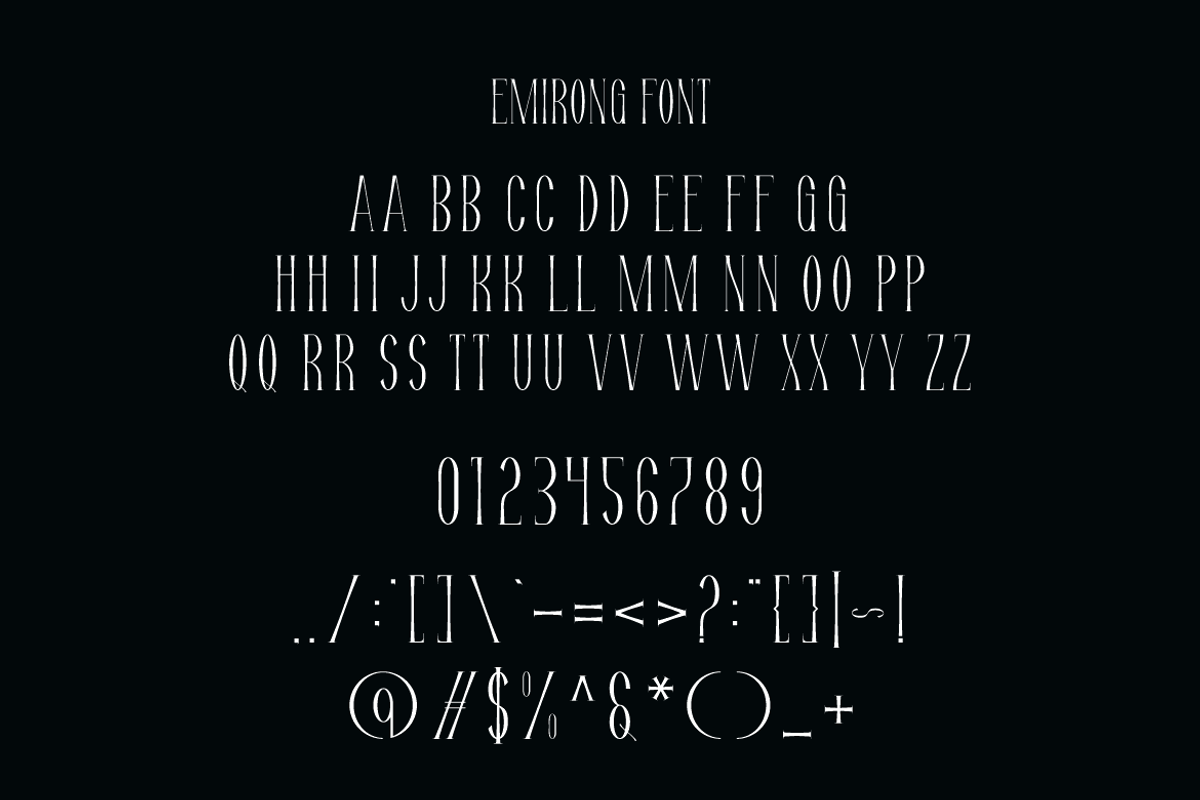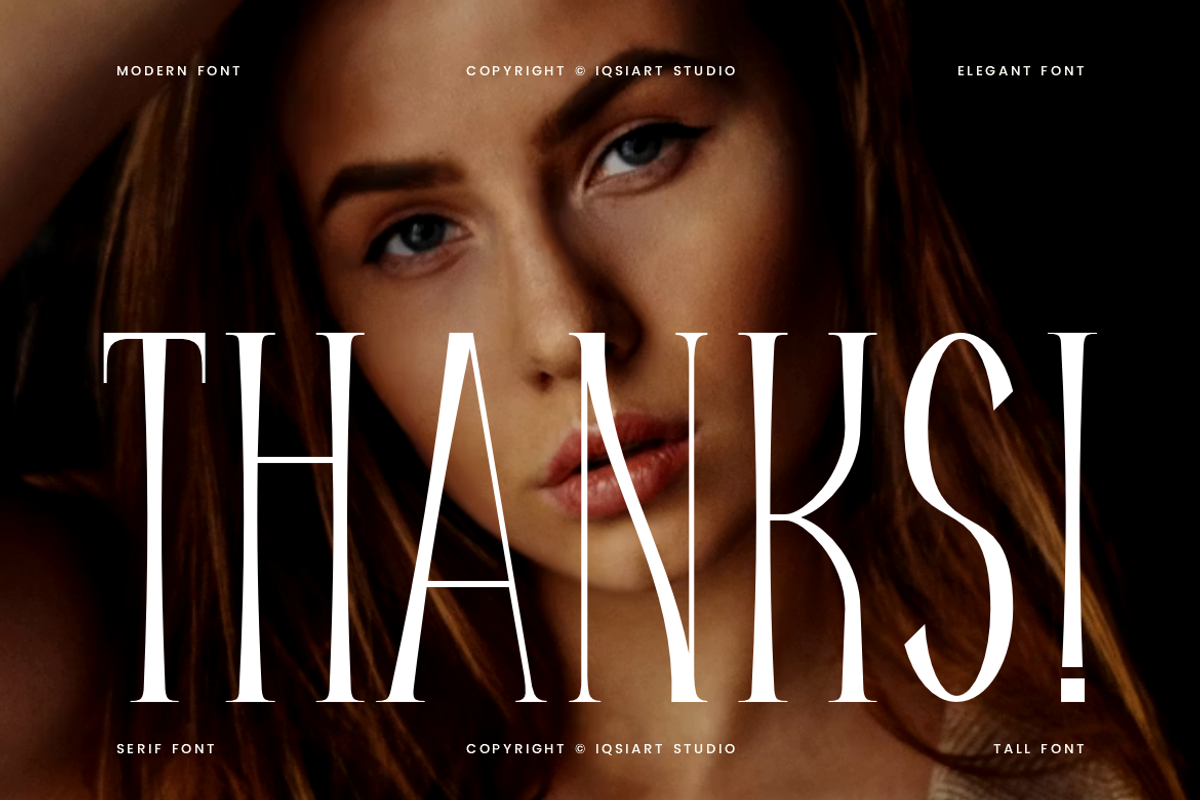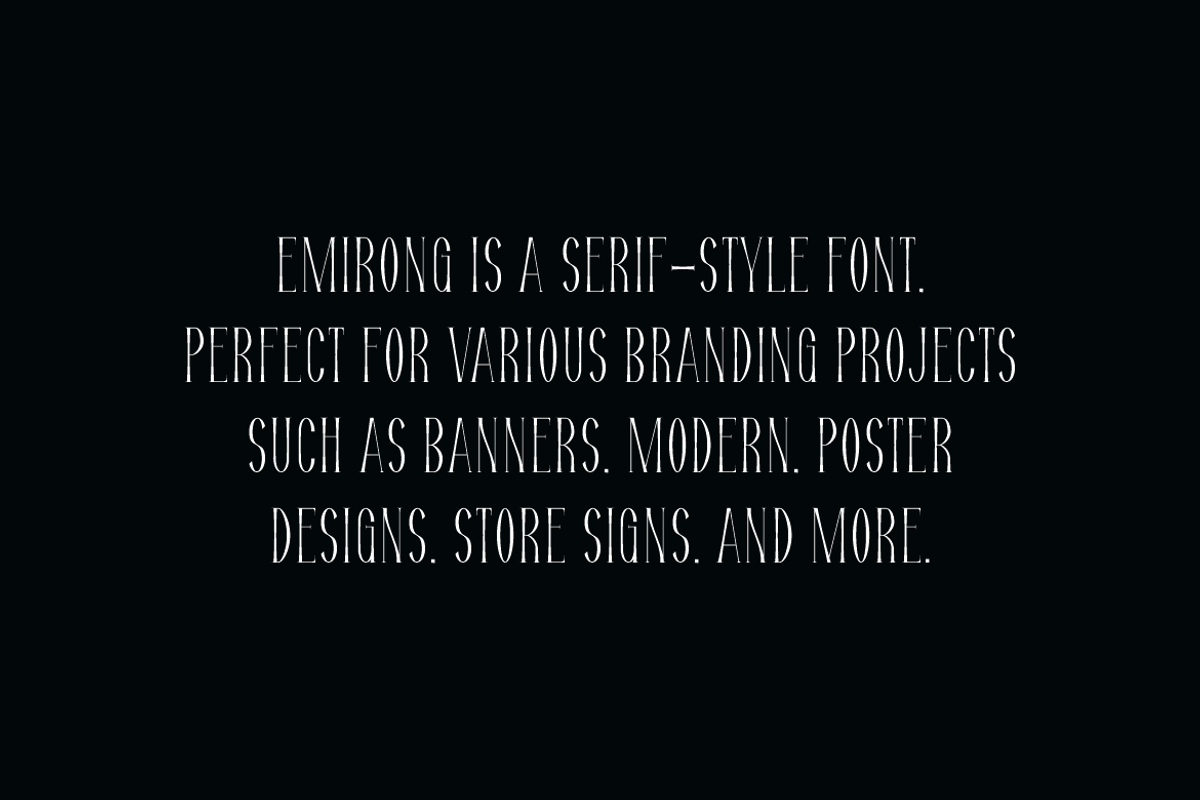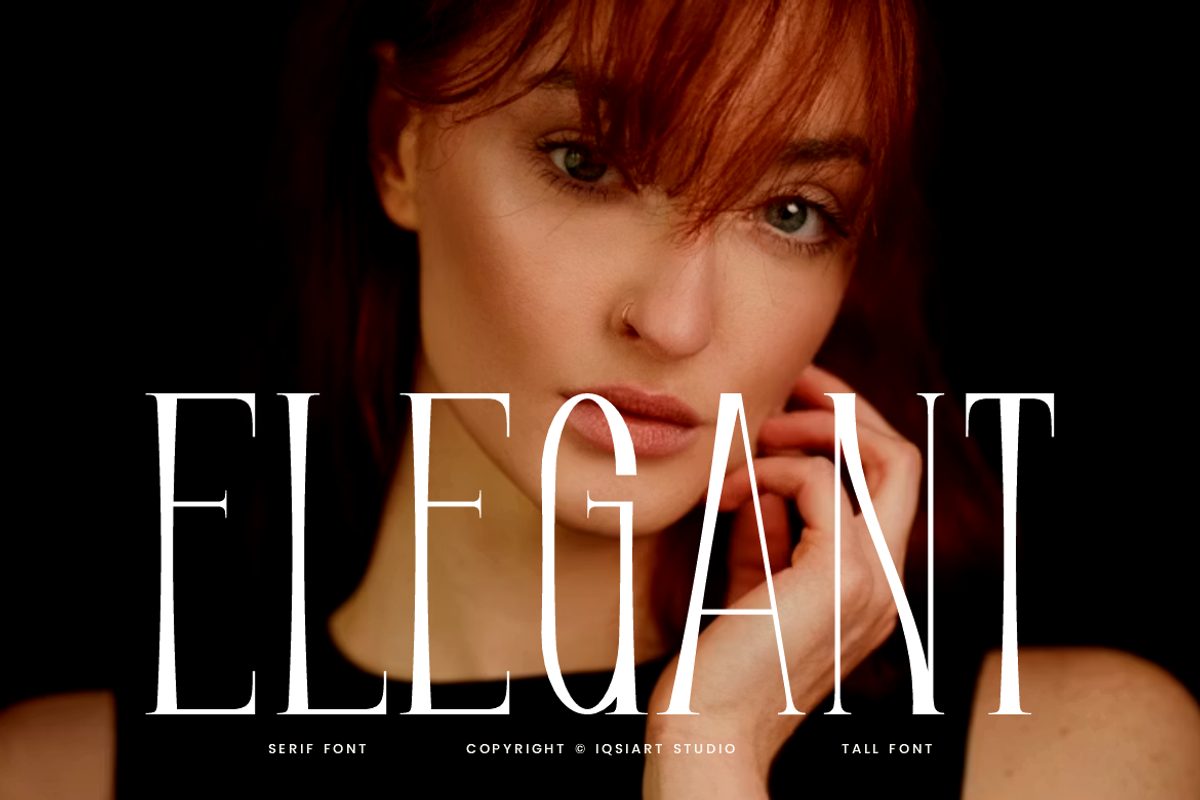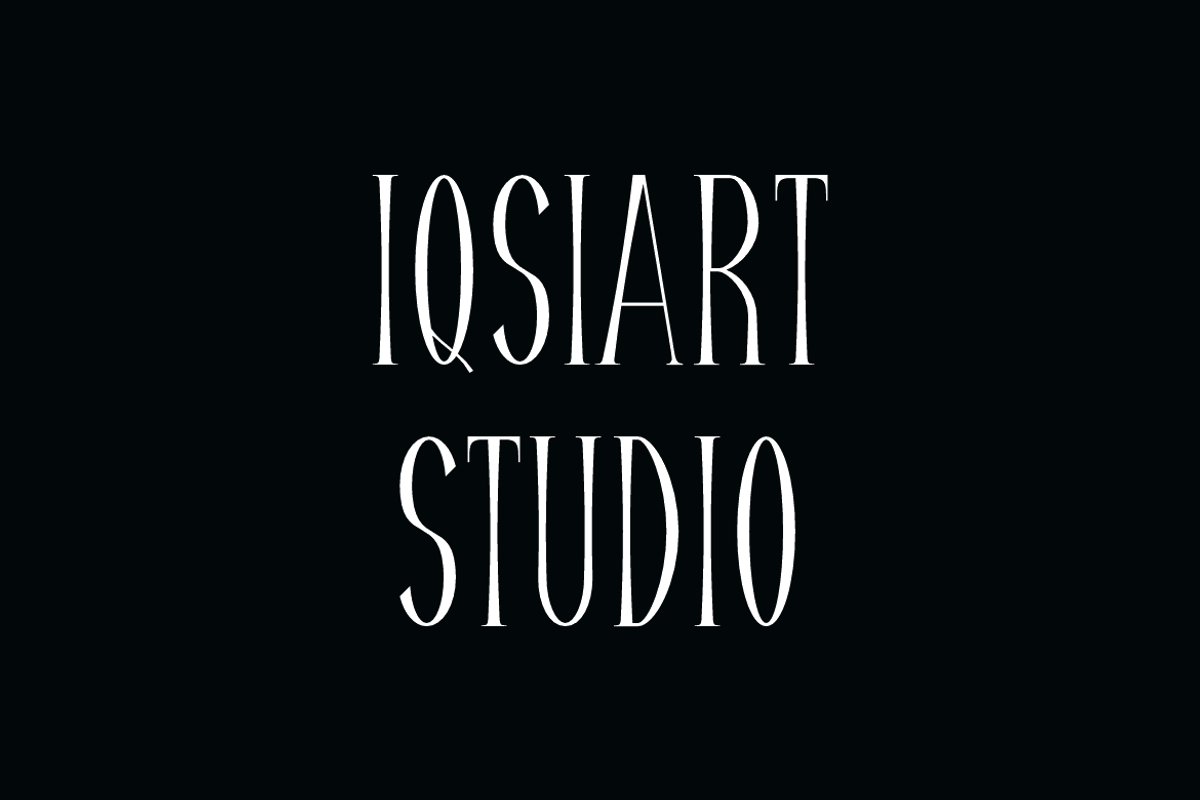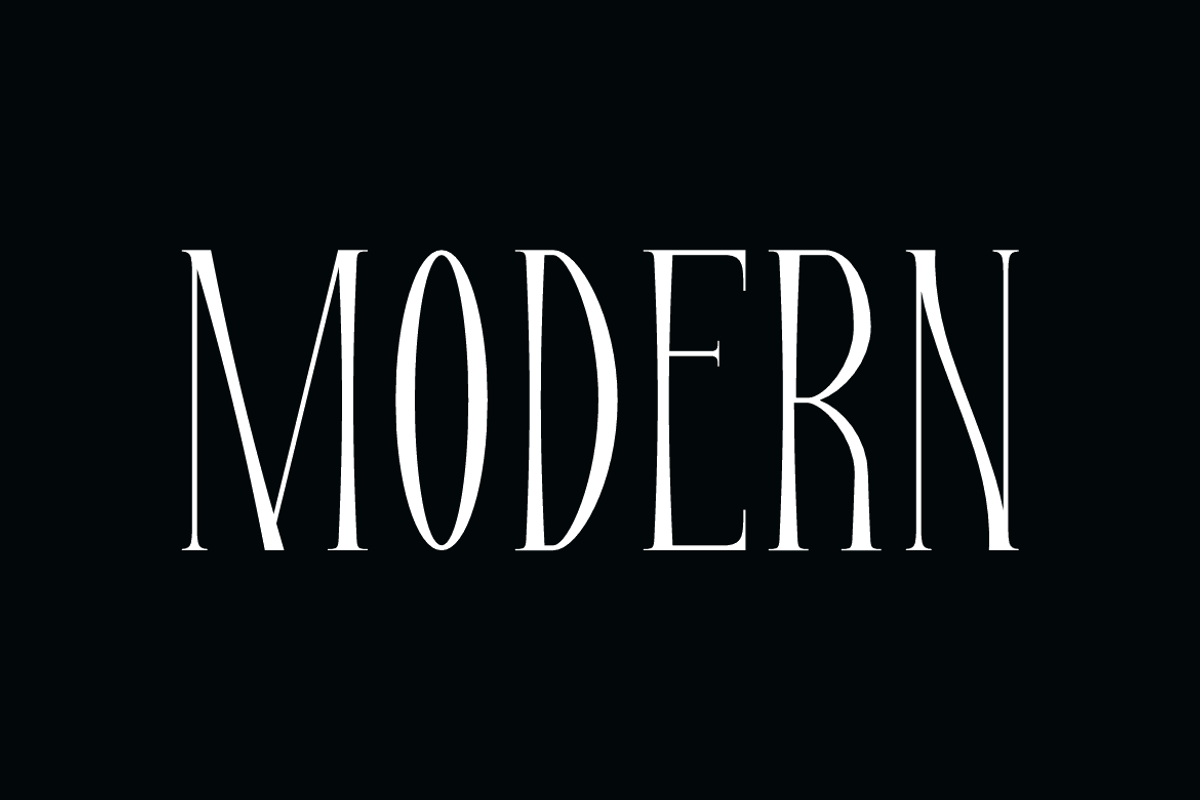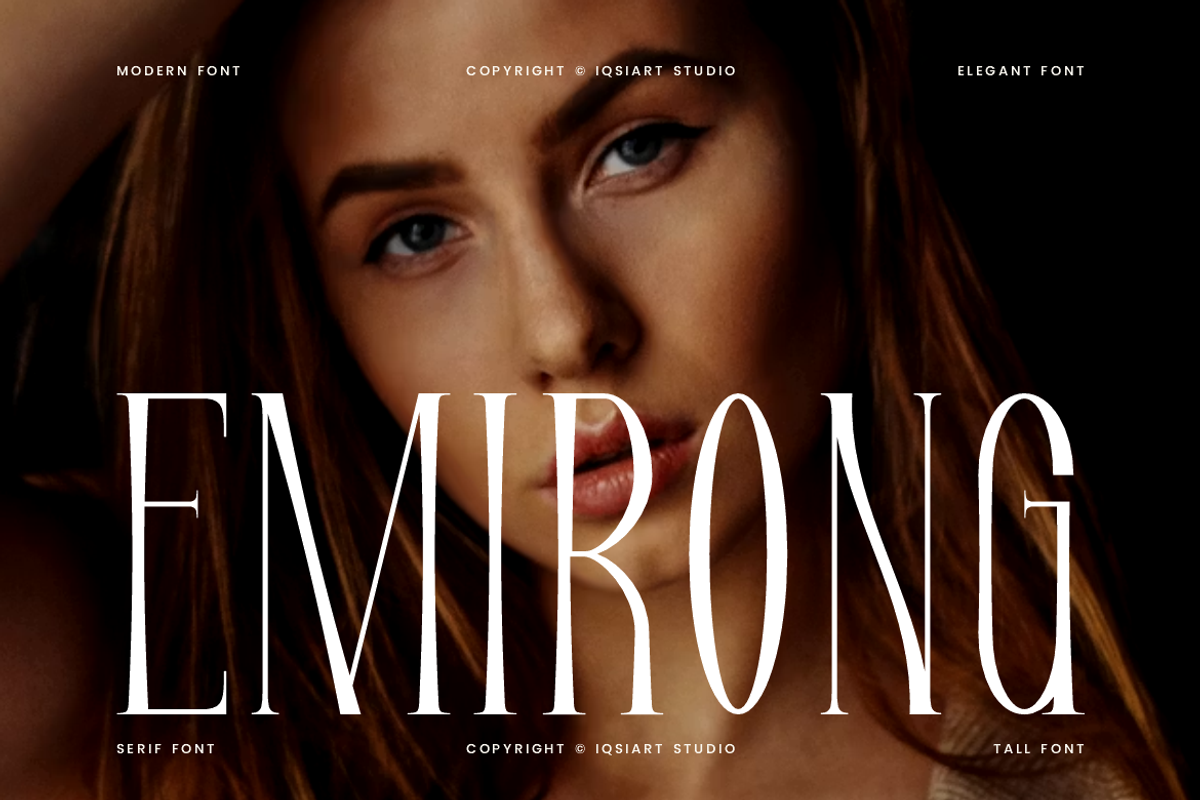
Emirong - Tall Serif Font
Emirong Font is a serif and authentic display typeface
that suits a variety of design needs. We offer a wide range of themes